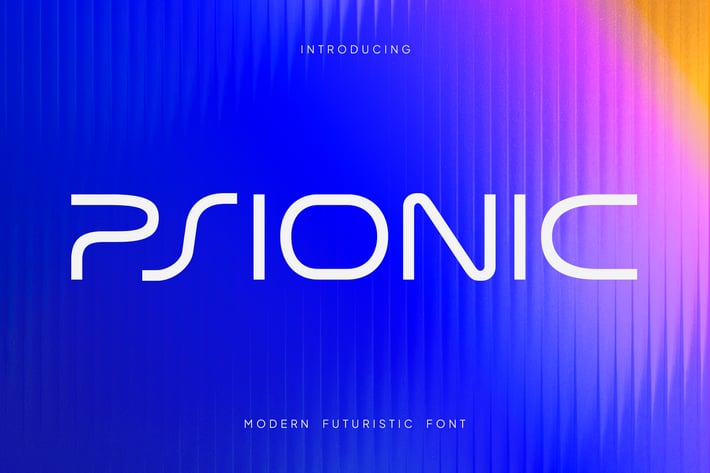
Psionic - Futuristic Font
PSIONIC – The Ultimate Futuristic Display Typeface
Unleash the power of the future with PSIONIC, a cutting-edge display typeface designed for the modern age. Inspired by sci-fi aesthetics, future energy, and sleek technology, PSIONIC delivers a bold, futuristic look perfect for high-tech branding, movie titles, EV car designs, and digital merchandise.
With sharp angles, geometric precision, and a tech-forward appeal, PSIONIC is built to make an impact. Whether you're designing for films, gaming, esports, or social media, this font brings a next-gen feel to any project.
Perfect for:
Sci-fi & Cyberpunk Branding
Futuristic Logos & Tech Startups
Movie & Game Titles
EV Car Designs & Merchandise
Social Media & High-Tech Advertising